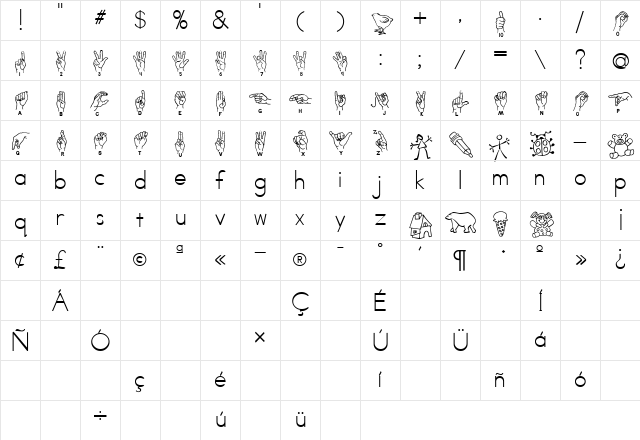
AbcAmSignLangLetter Regular Free Font
AbcAmSignLangLetter Regular
Design Context for AbcAmSignLangLetter
AbcAmSignLangLetter is a composed and adaptable typeface that performs quietly and consistently across a wide range of design contexts.